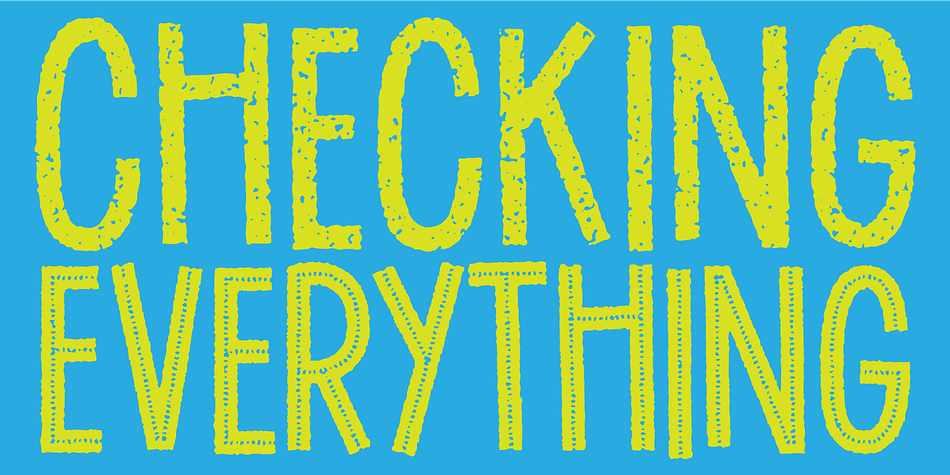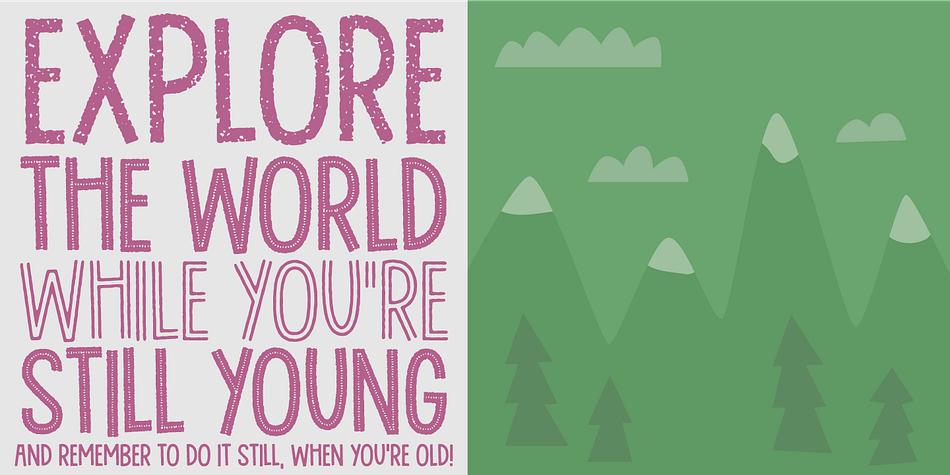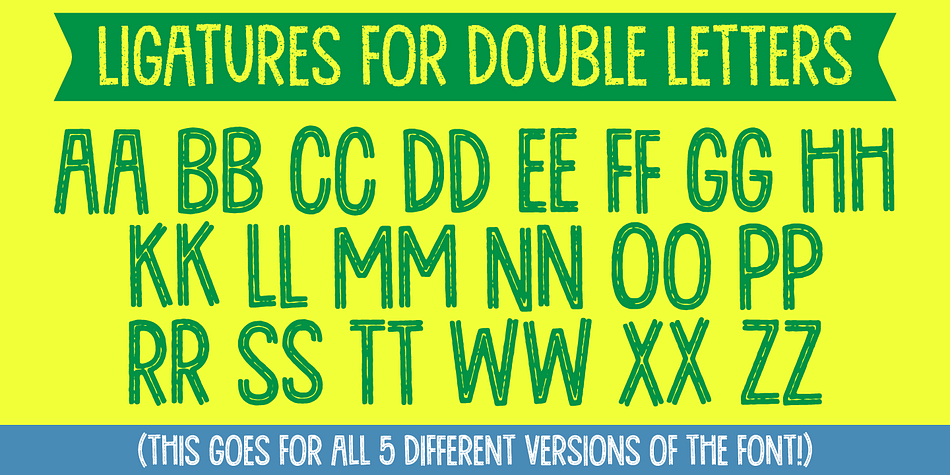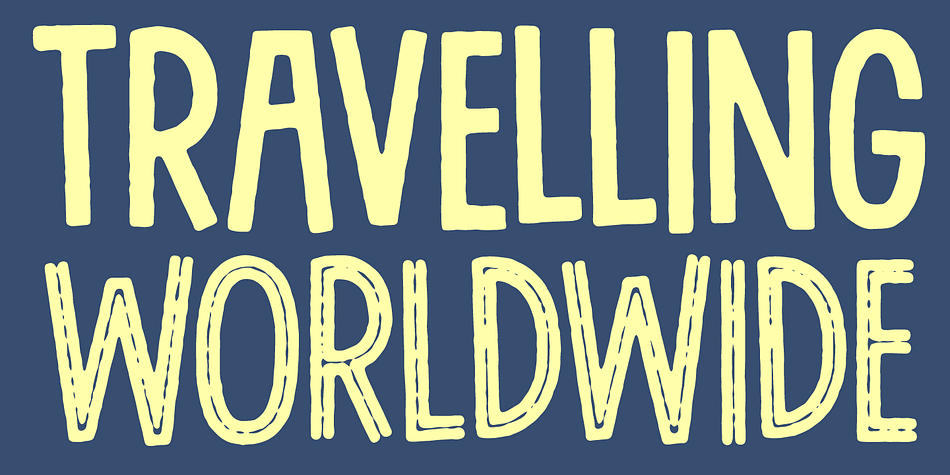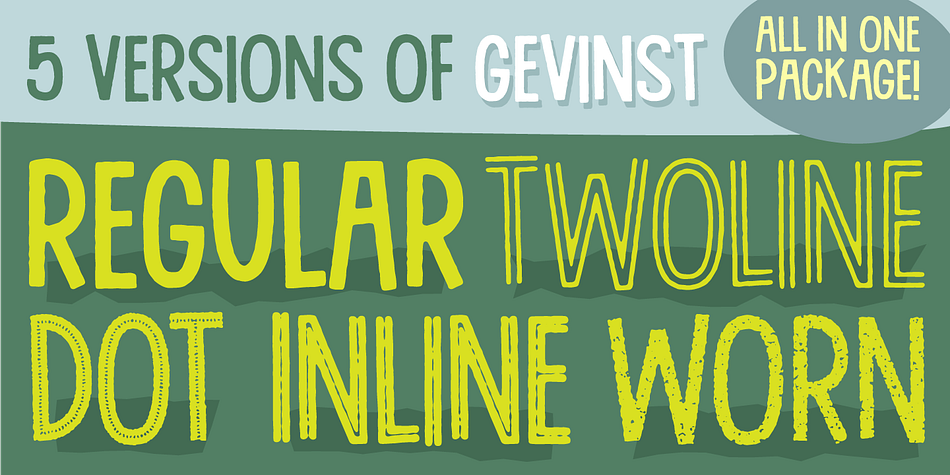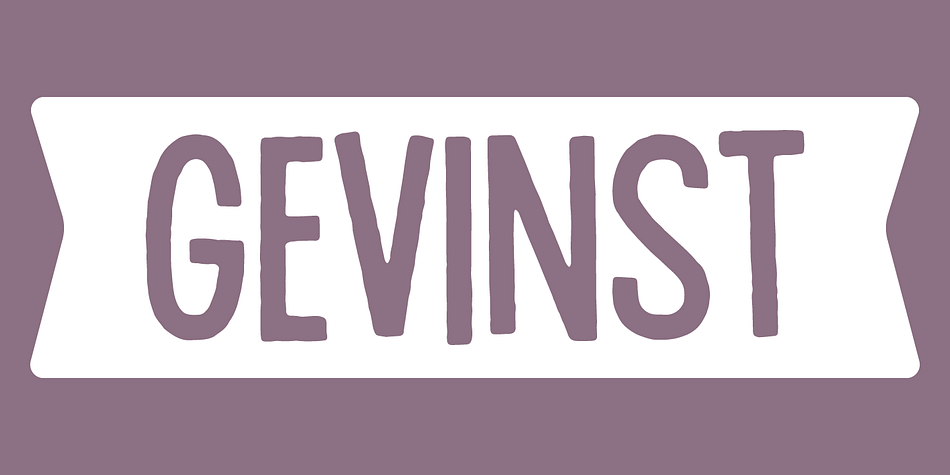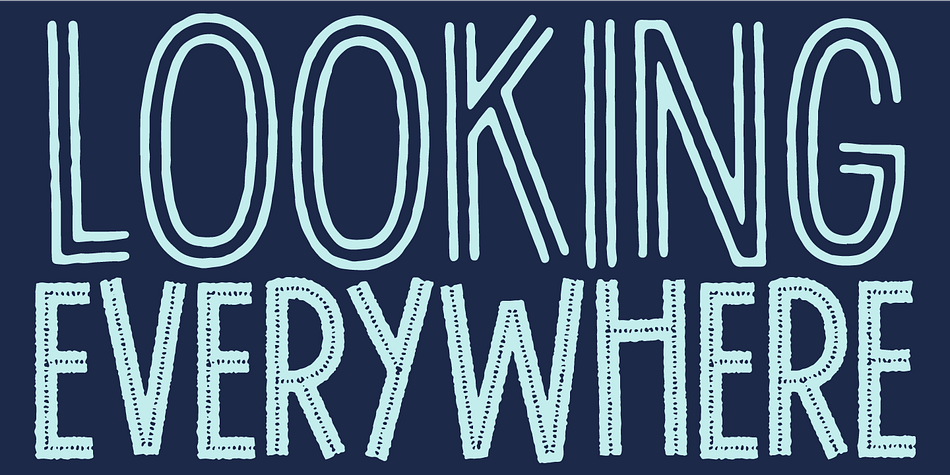
Designed by Jakob Fischer, Gevinst is a hand display font family. This typeface has five styles and was published by Pizzadude.dk.
Gevinst is reward in danish. Also, this font is a kind of reward, because you get 5 fonts in one package…and they work very well together! Remember to use the ligatures for double lettering, making your text look even more realistic!